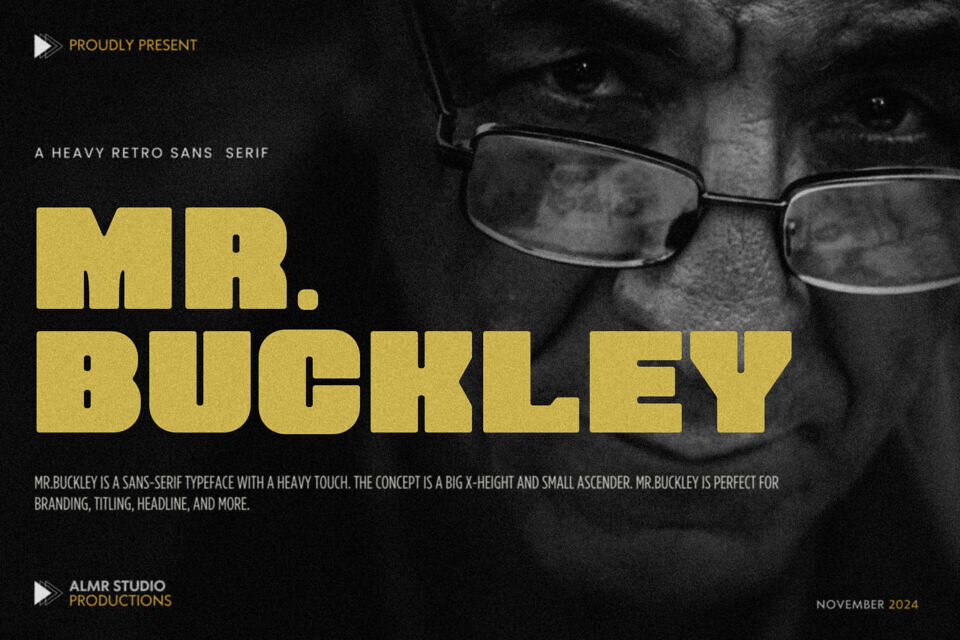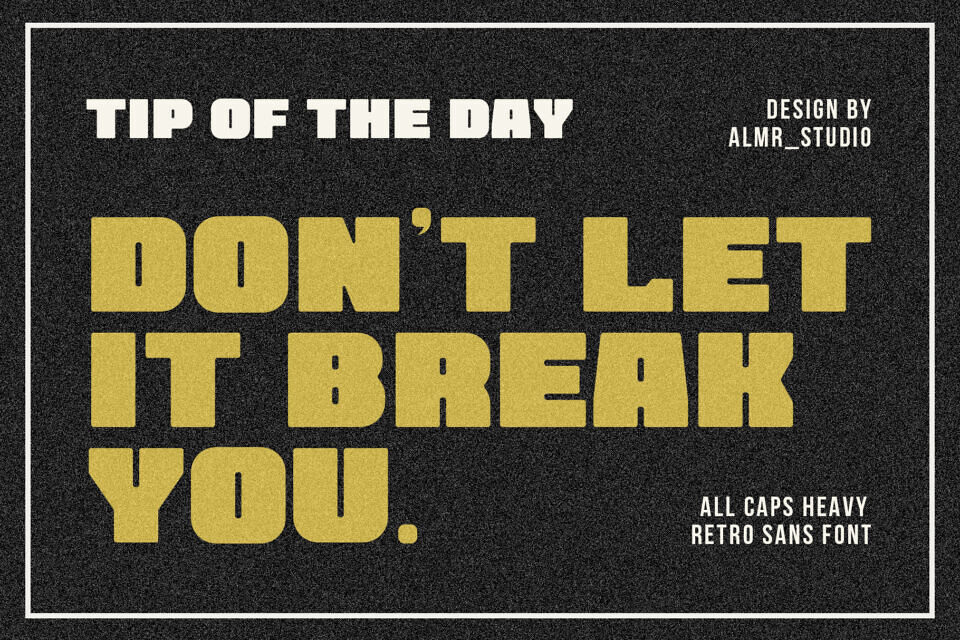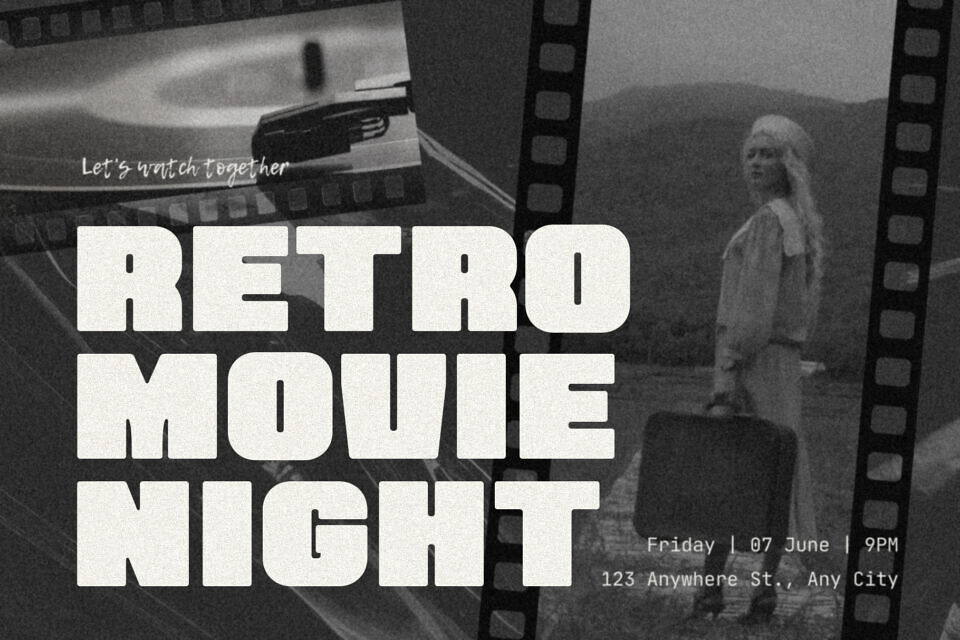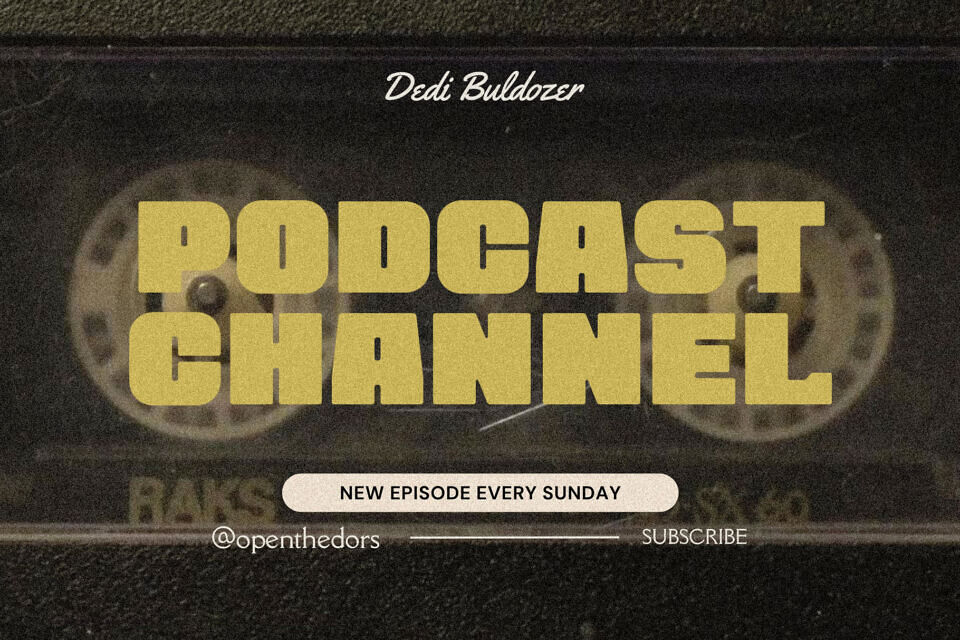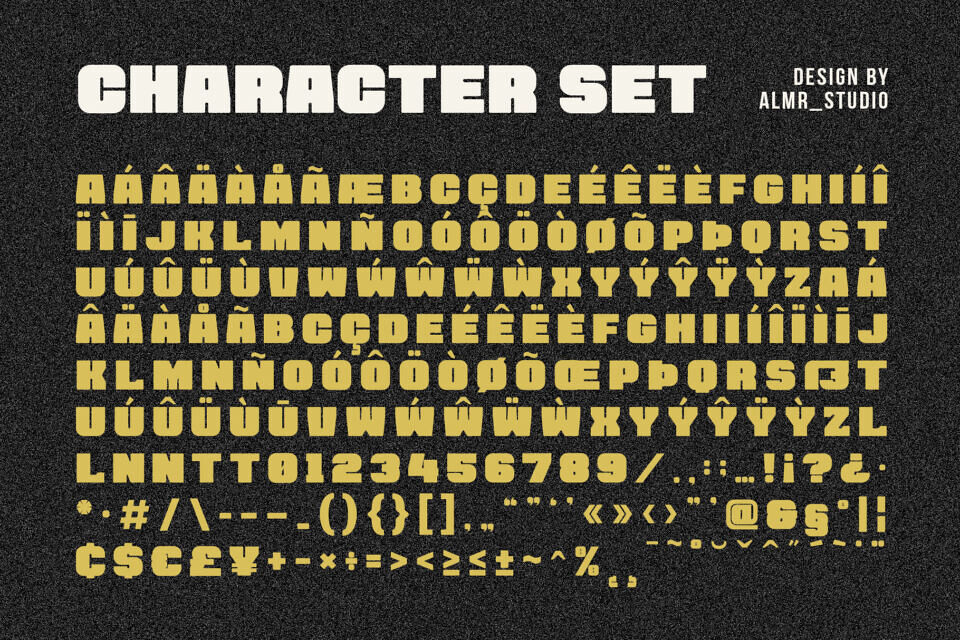
Introducing Mr.Buckley, a Heavy retro sans by Almeera Studio. Mr.Buckley is a Heavy retro sans, elegant and simple font, best used as a display for headings, logos, branding, magazines, product packaging and invitations.